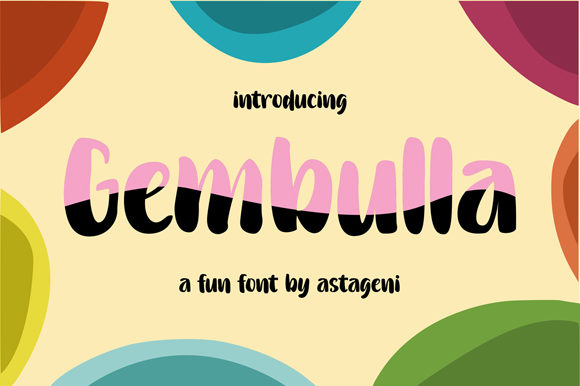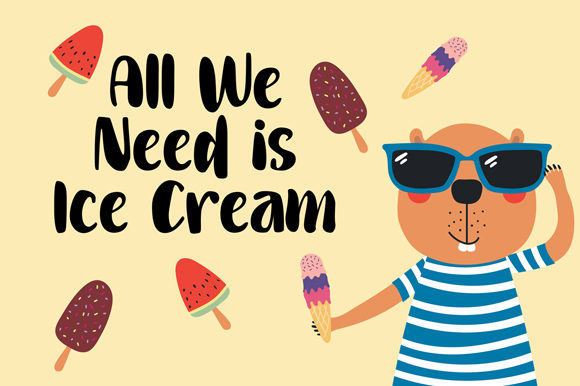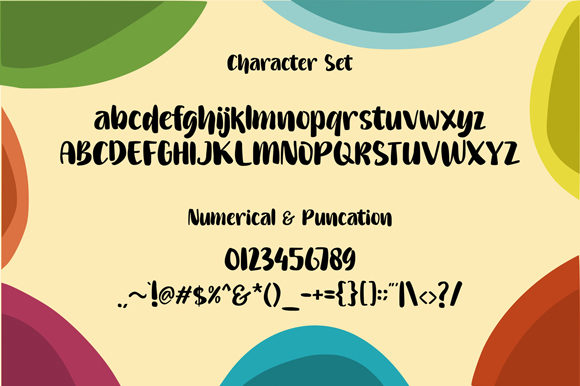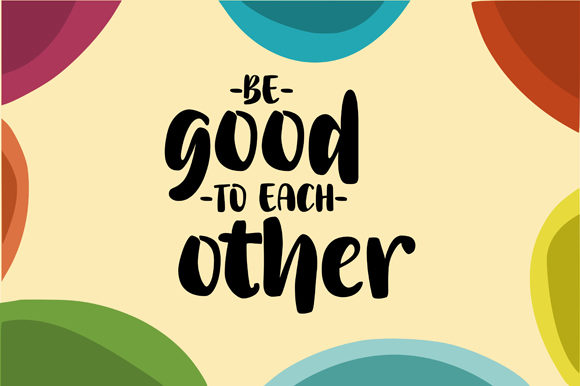
Gembulla Font
About Gembulla Font
Gembulla is a strikingly beautiful and sweet handwritten font with a whimsical twist. Get inspired by its unique and authentic feel!